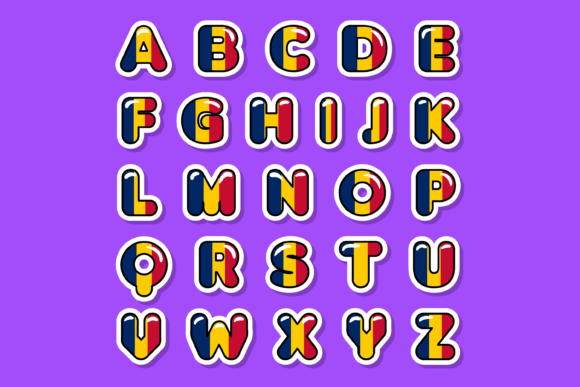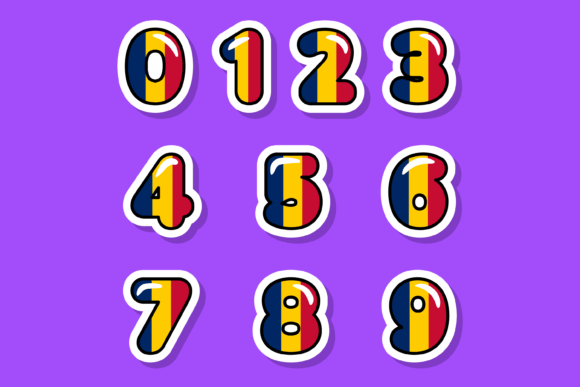
Introducing Chad Font: The Ultimate Color Font for Designers and Crafters
Are you tired of using the same old fonts for your designs and crafts? Look no further! Chad Color is an incredibly cool color font designed in the style of the Chad Flag. This stunning font is perfect for adding a lovely touch to your custom designs, DIY crafts, and any creation that requires a unique and eye-catching element. In this article, we’ll dive into the world of Chad Font and explore its features, benefits, and uses.
What is Chad Font?
Chad Font, also known as Chad Color, is a color font that mimics the style of the Chad Flag. The font features a beautiful, bold, and vibrant design that is sure to grab attention. Its unique style is inspired by the flag’s distinctive colors and patterns, making it an excellent choice for designs that require a touch of African flair.
Key Features of Chad Font
- Multi-color support: Chad Font is a color font, which means it can display multiple colors in a single glyph. This feature allows for stunning color combinations and gradients.
- High-quality design: The font is designed with precision and care, ensuring that it looks great in various sizes and resolutions.
Benefits of Using Chad Font
So, why should you choose Chad Font for your designs and crafts? Here are just a few benefits:
- Add a unique touch: Chad Font’s distinctive style will set your designs apart from the crowd and add a fresh, exciting element to your work.
- Increase visual appeal: The font’s bold, vibrant colors will grab attention and draw viewers in, making your designs more engaging and effective.
- Versatility: Chad Font can be used in a wide range of applications, from custom designs and DIY crafts to branding and marketing materials.
Uses for Chad Font
Chad Font is an incredibly versatile font that can be used in various contexts. Here are some ideas to get you started:
- Custom designs: Use Chad Font to create stunning custom designs for clients or personal projects.
- DIY crafts: Add a professional touch to your DIY crafts, such as handmade cards, gift tags, and more.
- Branding and marketing: Use Chad Font to create eye-catching branding and marketing materials, such as logos, brochures, and social media graphics.
- Events and parties: Create custom event materials, such as invitations, banners, and decorations, using Chad Font.
Tips for Using Chad Font
To get the most out of Chad Font, here are some tips to keep in mind:
- Experiment with color combinations: Chad Font’s multi-color support allows for endless color combinations. Don’t be afraid to try new and exciting color schemes.
- Use it sparingly: While Chad Font is stunning, it’s best to use it sparingly to avoid overwhelming the viewer. Balance it with other fonts and design elements for maximum impact.
- Pair it with complementary fonts: Pair Chad Font with complementary fonts to create a harmonious and visually appealing design.